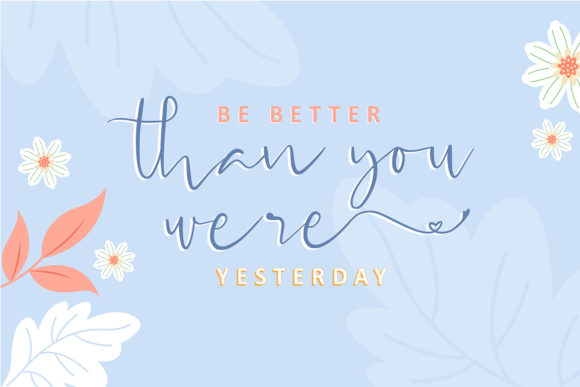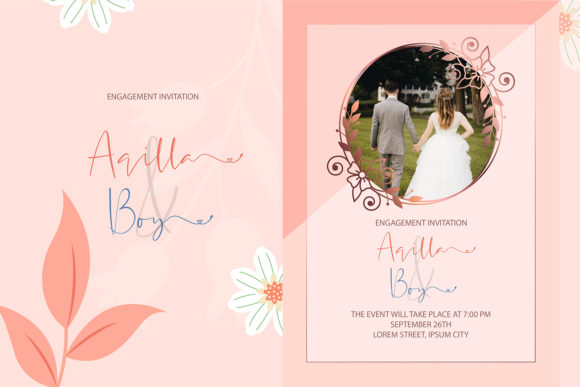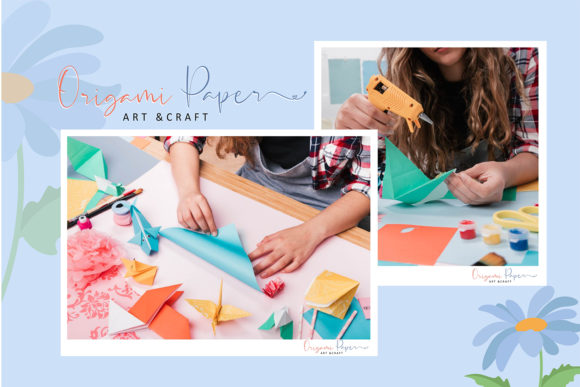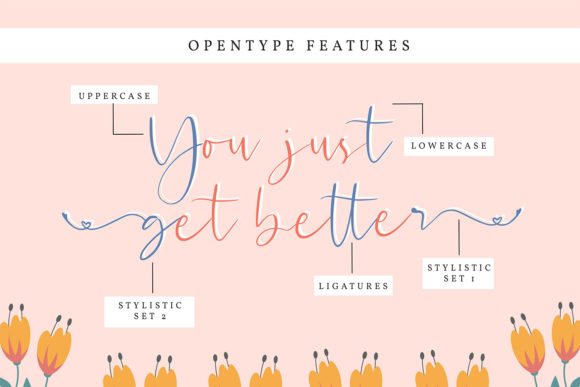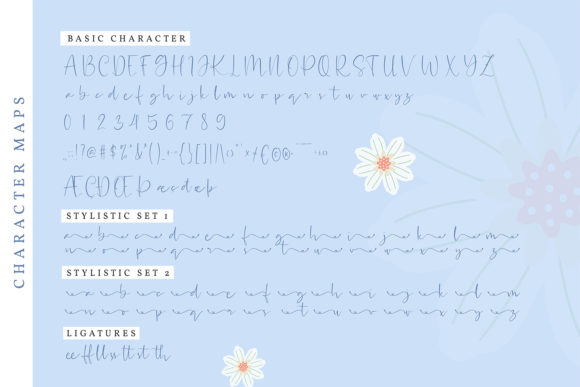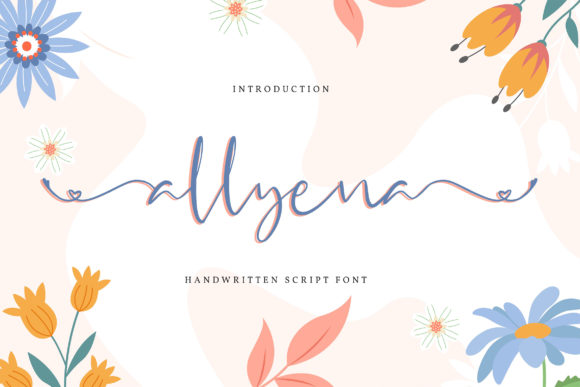
Introducing Allyena Font: The Whimsical Script Font for Creative Expression
In the world of typography, fonts play a crucial role in conveying emotions and setting the tone for creative projects. For designers and crafters looking to add a touch of whimsy and relaxation to their work, Allyena Font is an excellent choice. This lovely script font boasts a relaxed theme, making it an incredibly versatile asset for any font library.
The Charm of Allyena Font
Allyena Font is a beautifully crafted script font that exudes a sense of calmness and playfulness. Its unique style is perfect for a wide range of creative projects, from branding and advertising to packaging and digital media. Whether you’re working on a project that requires a touch of elegance or a dash of whimsy, Allyena Font is sure to impress.
Why Choose Allyena Font?
So, why should designers and crafters choose Allyena Font for their creative projects? Here are just a few reasons:
- Versatility: Allyena Font is suitable for a wide range of projects, from formal to informal, and can be used in various contexts, including digital and print media.
- Unique Style: The font’s relaxed theme and whimsical style set it apart from other script fonts, making it an excellent choice for designers looking to add a touch of personality to their work.
- Elegant and Playful: Allyena Font strikes the perfect balance between elegance and playfulness, making it an excellent choice for designers who want to create visually appealing text.
Allyena Font is perfect for a variety of creative projects, including:
- Branding and Advertising: Use Allyena Font to create eye-catching logos, advertisements, and marketing materials that showcase your brand’s personality.
- Packaging: Add a touch of whimsy to your product packaging with Allyena Font, making it stand out on store shelves.
- Digital Media: Use Allyena Font to create engaging social media graphics, blog posts, and website content that resonates with your audience.
- Crafting and DIY: Allyena Font is perfect for crafters who want to add a personal touch to their DIY projects, such as handmade cards, invitations, and scrapbooking.
Tips for Using Allyena Font
To get the most out of Allyena Font, here are some tips:
- Experiment with Different Sizes: Allyena Font looks great in various sizes, so don’t be afraid to experiment and find the perfect size for your project.
- Pair with Other Fonts: Try pairing Allyena Font with other fonts to create a unique and visually appealing combination.
In conclusion, Allyena Font is a versatile and charming script font that is perfect for designers and crafters looking to add a touch of whimsy and relaxation to their creative projects. With its PUA encoding, unique style, and ease of use, Allyena Font is an excellent addition to any font library. Whether you’re working on a branding project, packaging design, or digital media, Allyena Font is sure to elevate your creations and help you achieve your design goals.